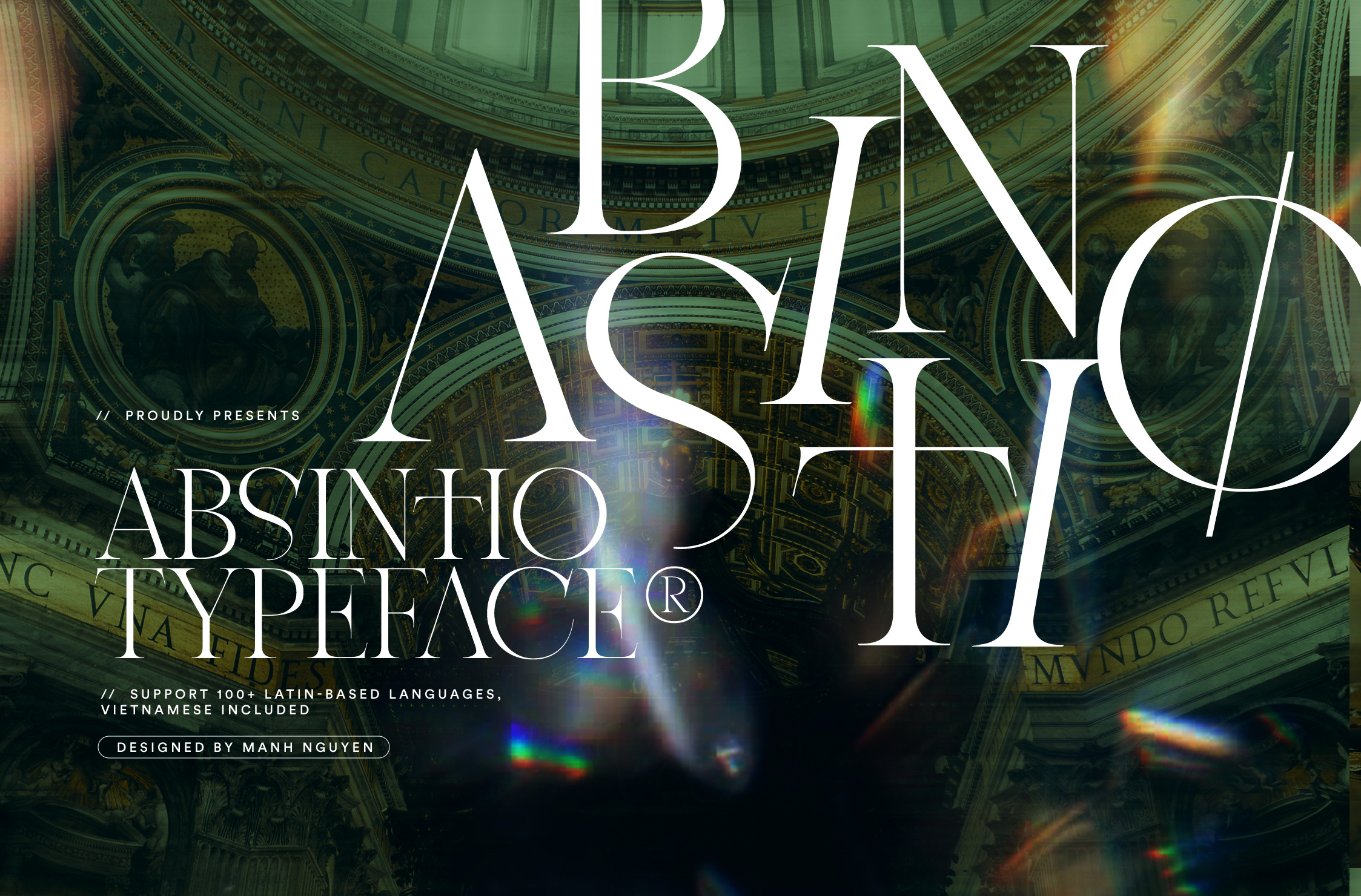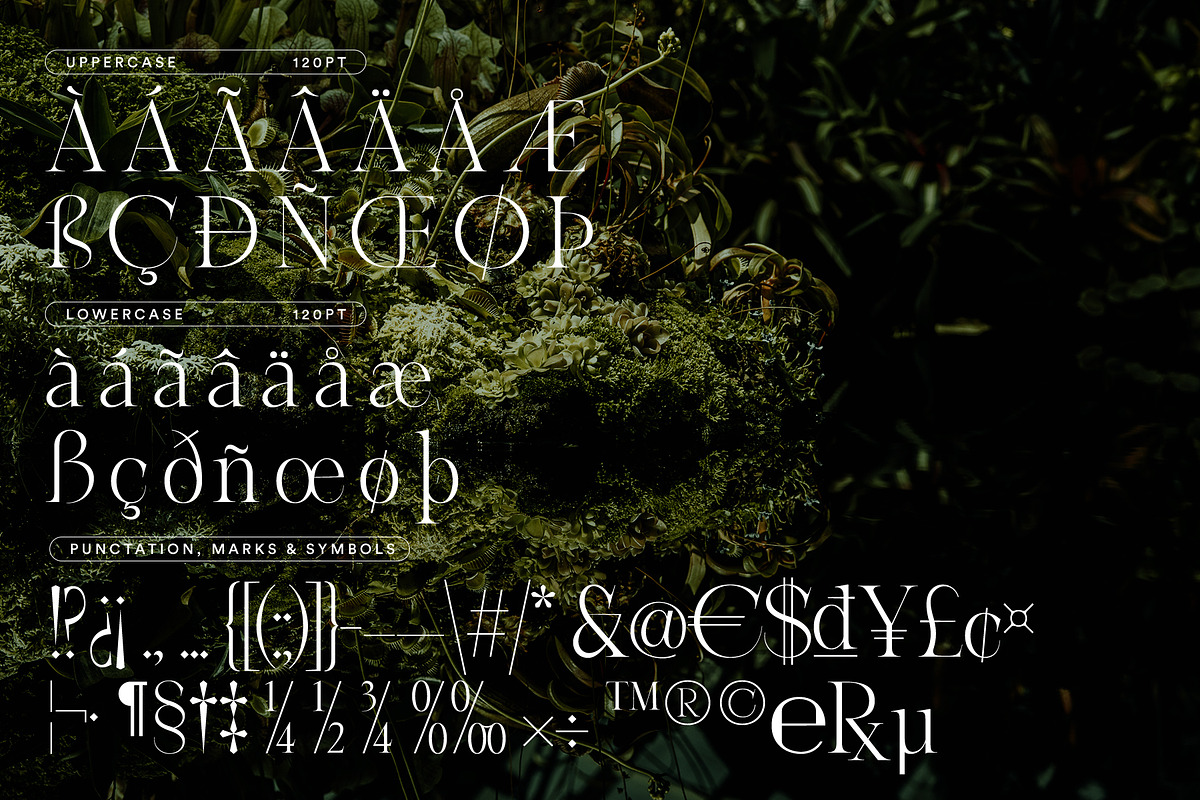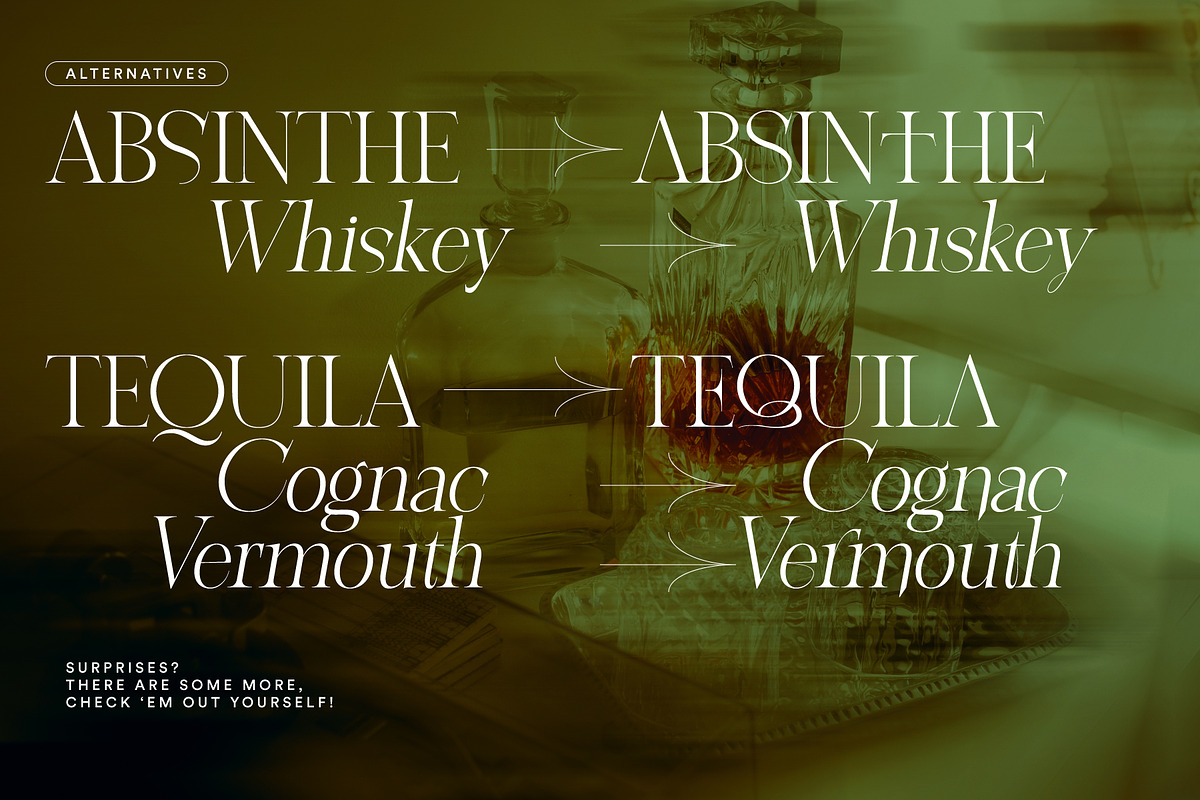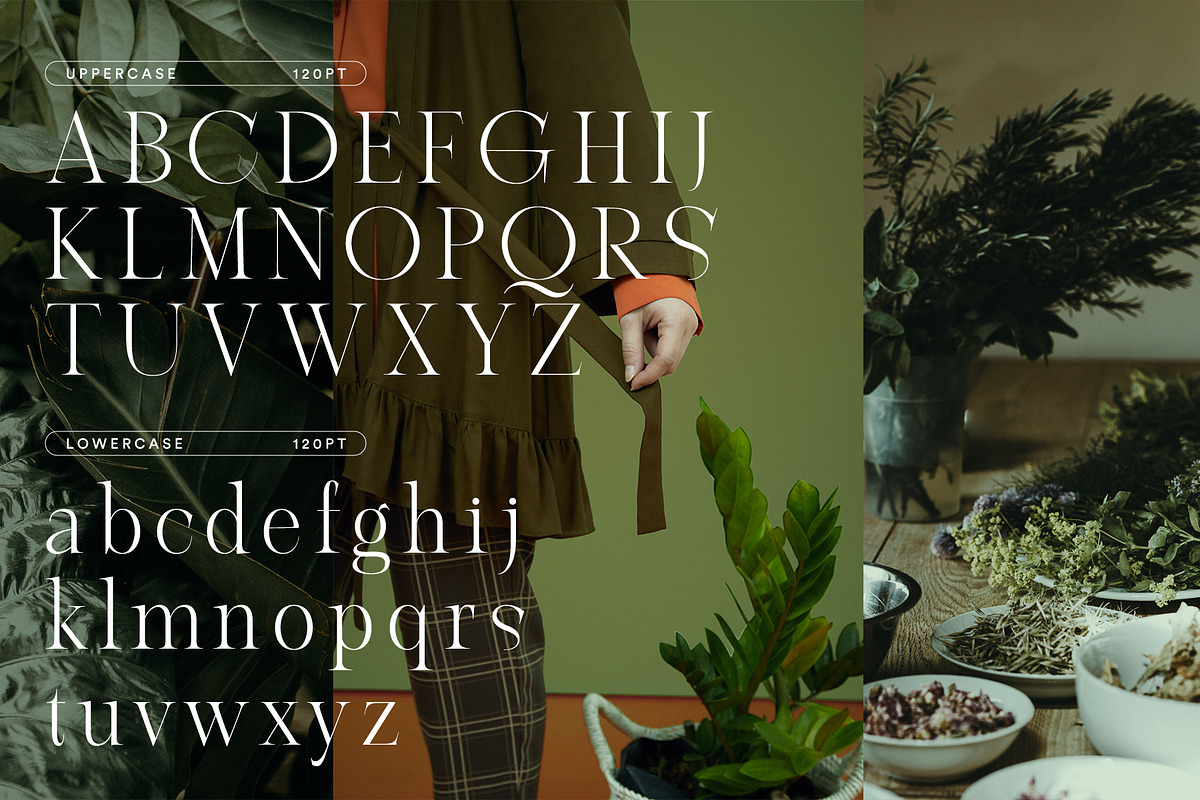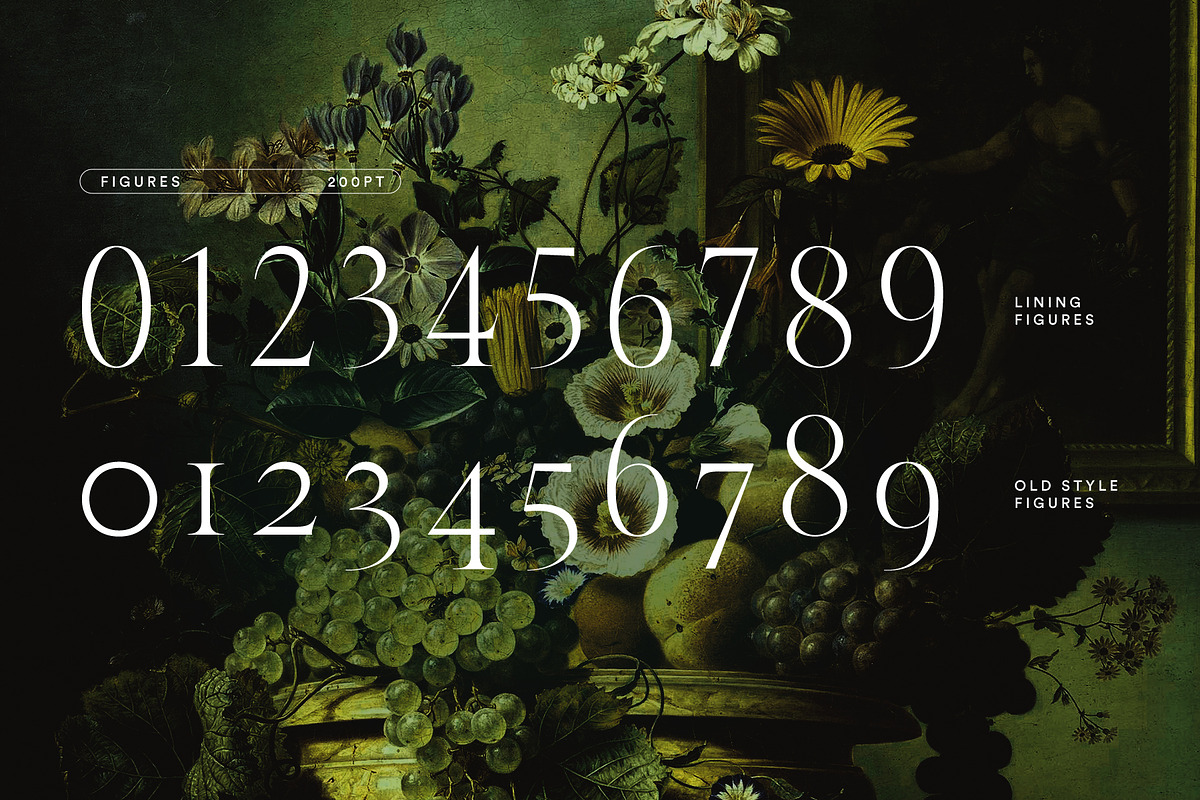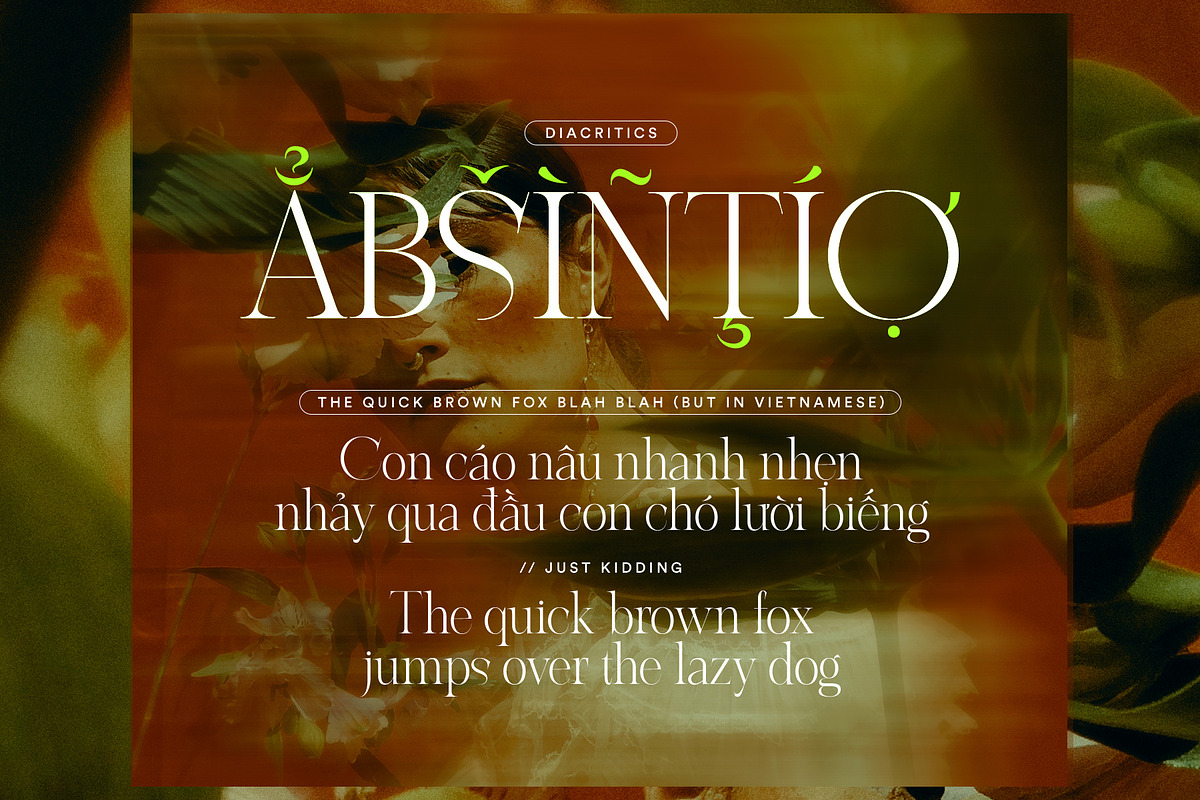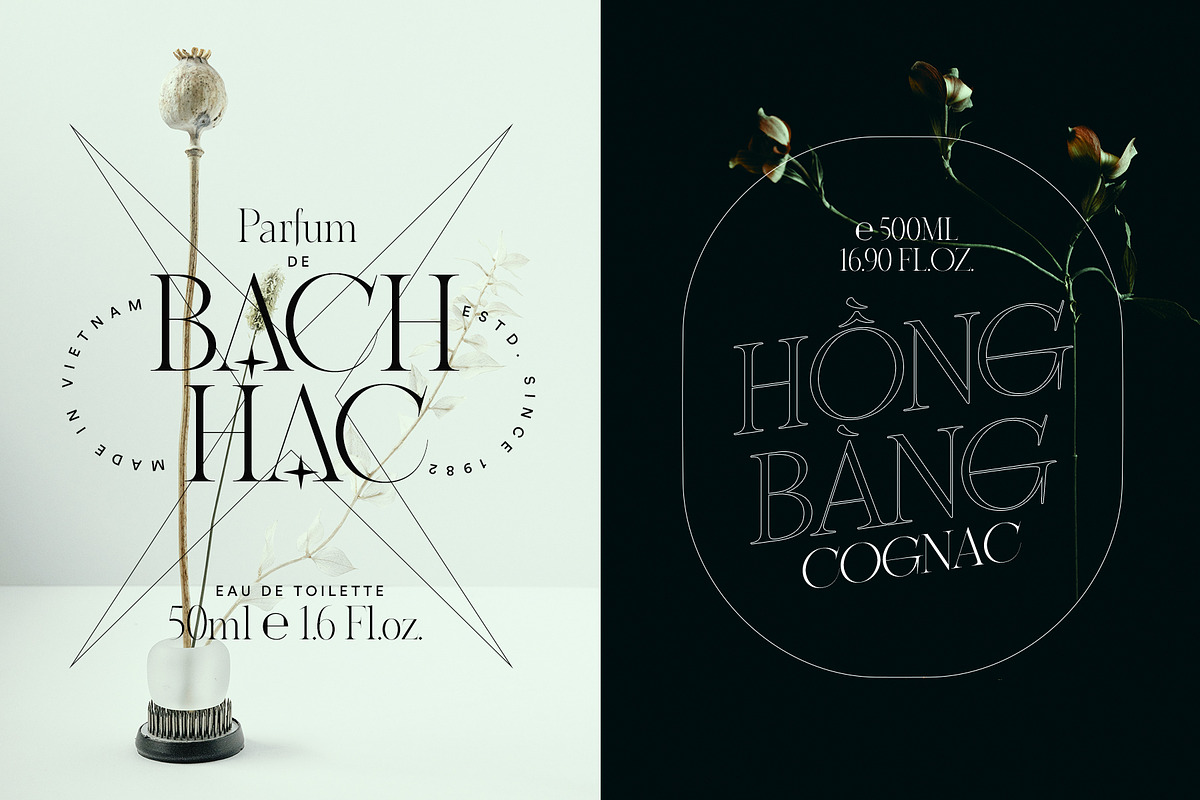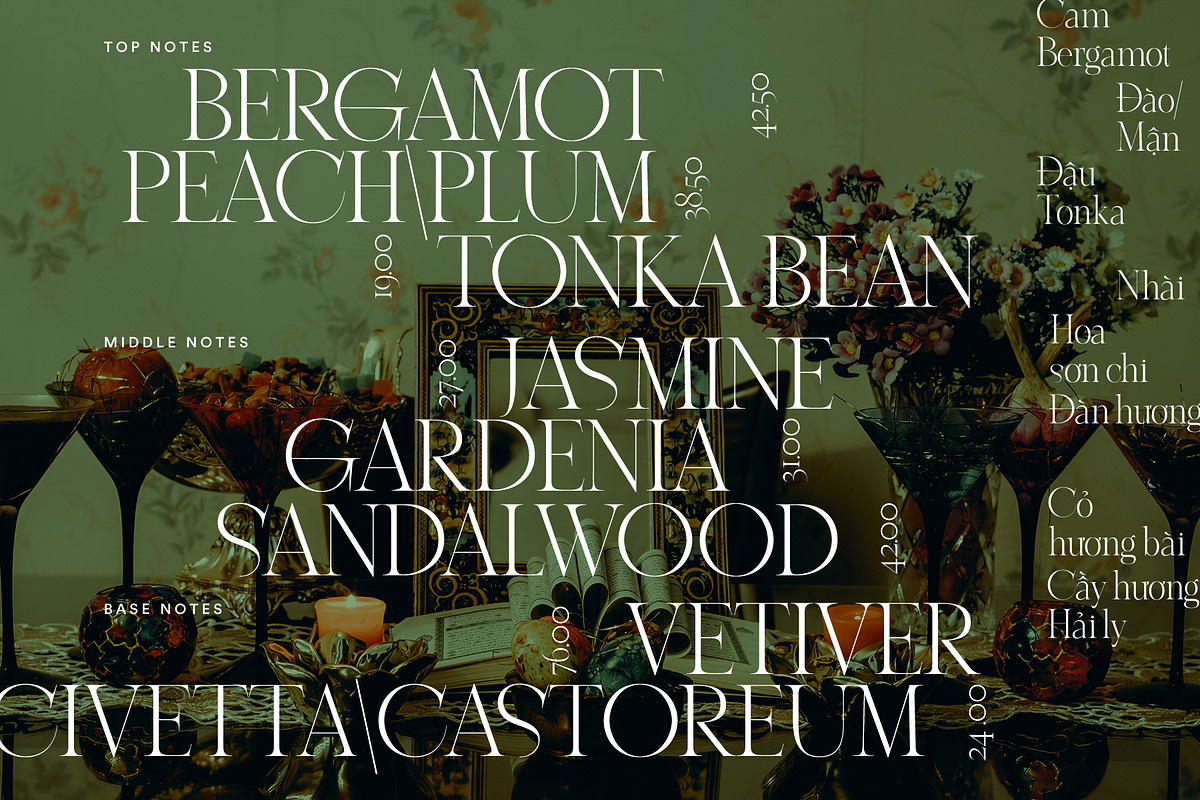
ABSINTIO - Stylish Classic Typeface
Absintio (lit. Absinthe) is an elegant, detailed transitional serif typeface created by Manh Nguyen, inspired by the process of distillation of Absinthe with grande wormwood, green anise, Florence fennel with other herbs giving it the mystic color of green. Despite being the Transitional serif, Absintio sharpens its edges and ratio to bring out a modern, delicate and sensual beauty which resembles the fragrances and essential oils extracted by liquor, thus there's nothing more suitable than Absintio for feminine yet powerful designs of haute couture perfume, body care products or alcoholic beverages. Absintio supports over 100 Latin-based languages, Vietnamese included and is currently on Creative Market exclusively.